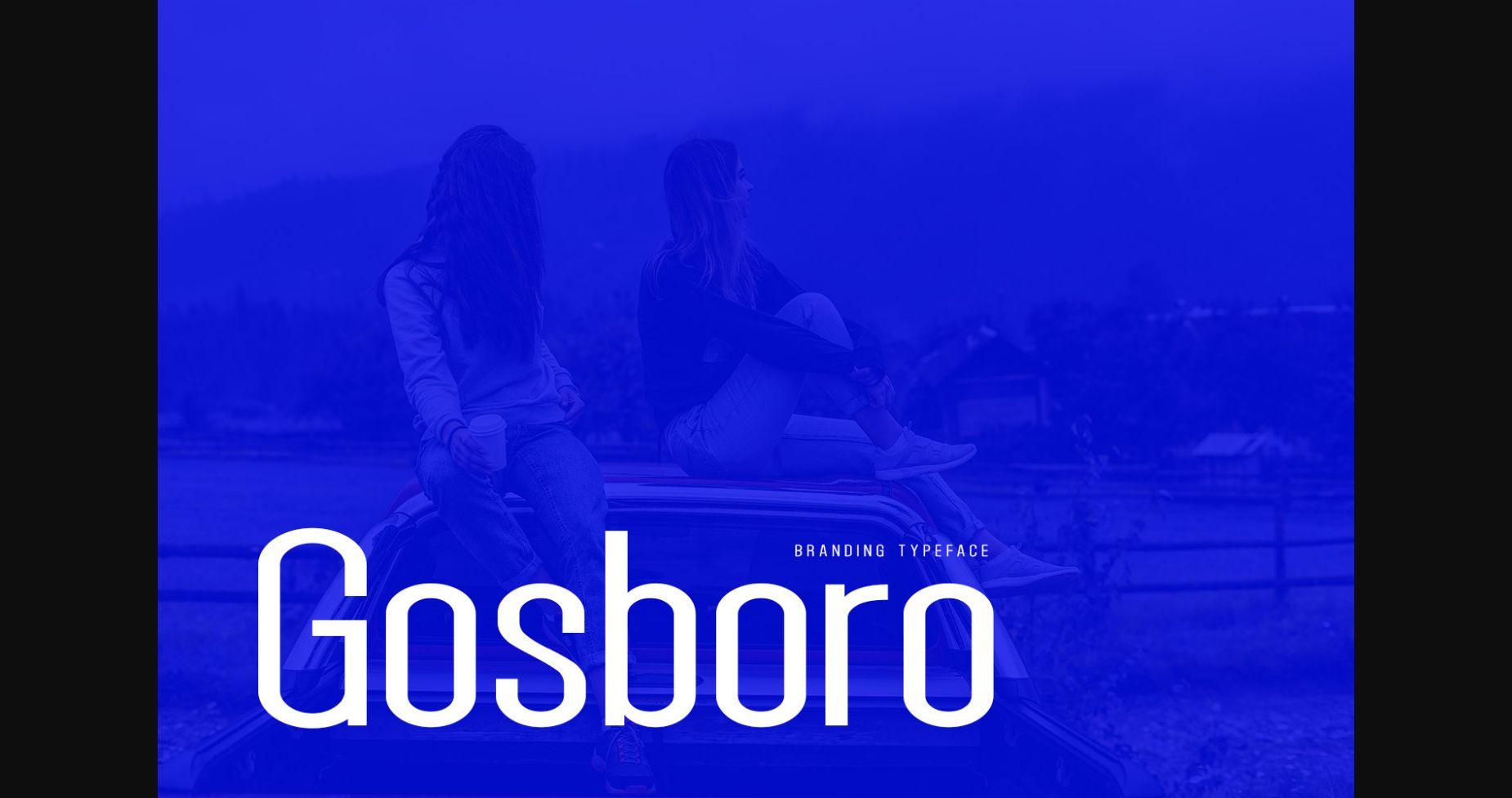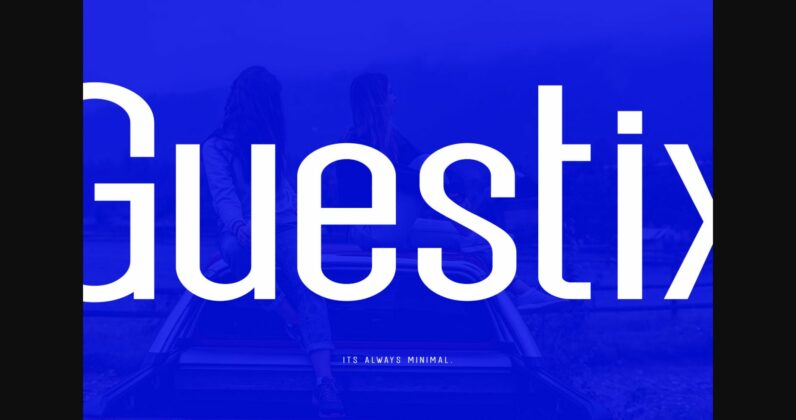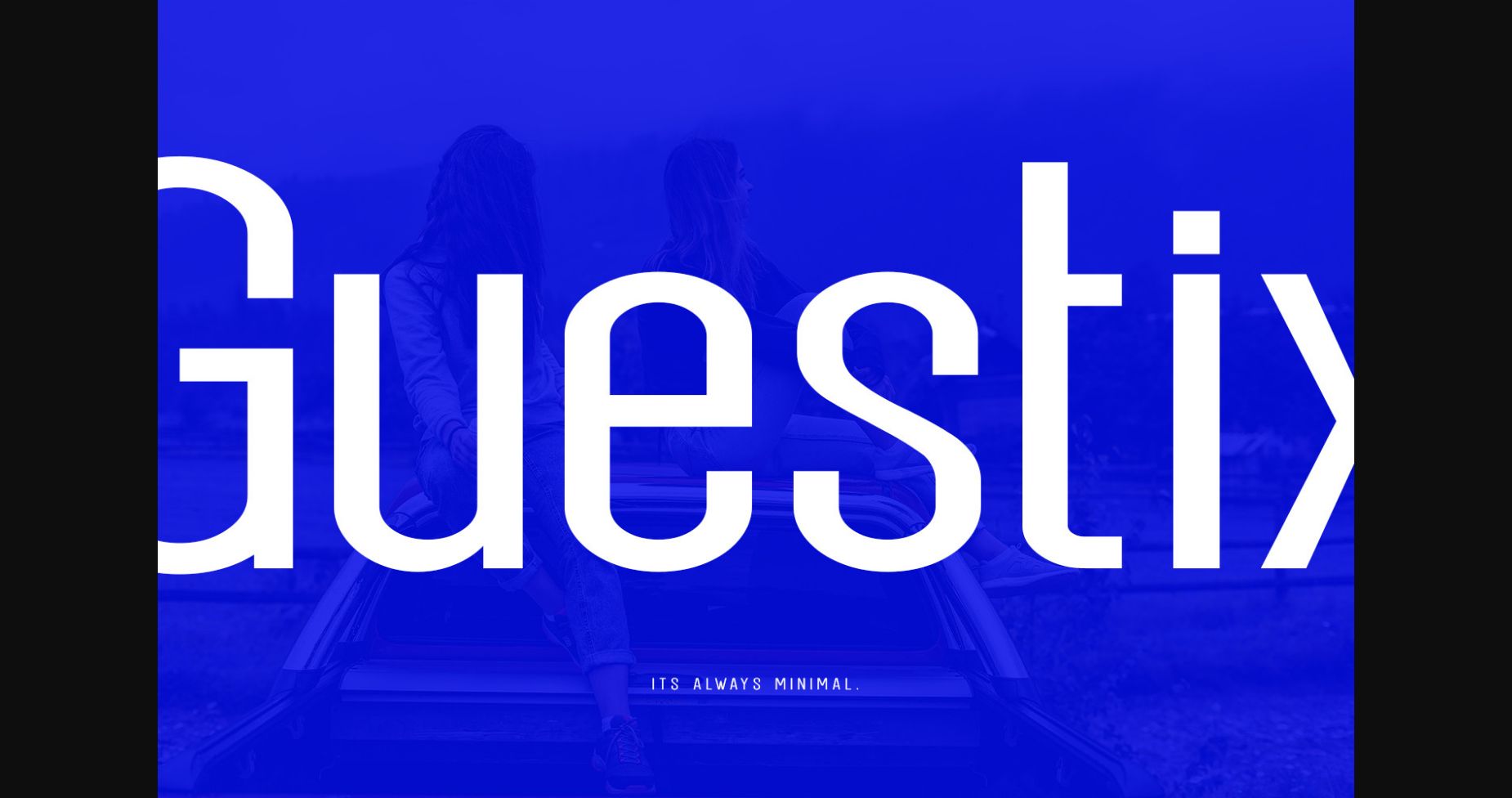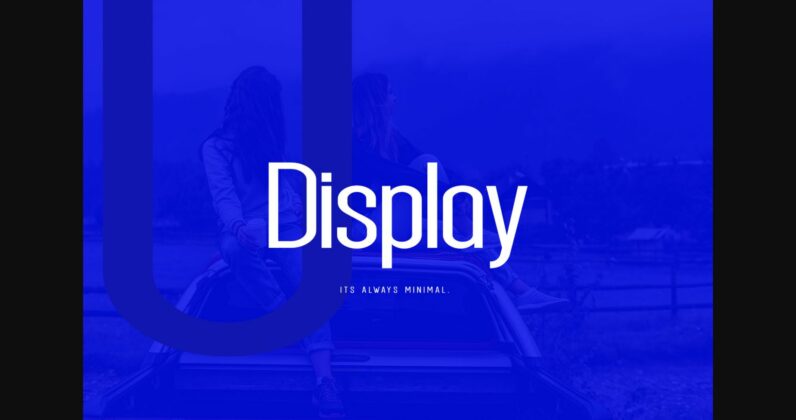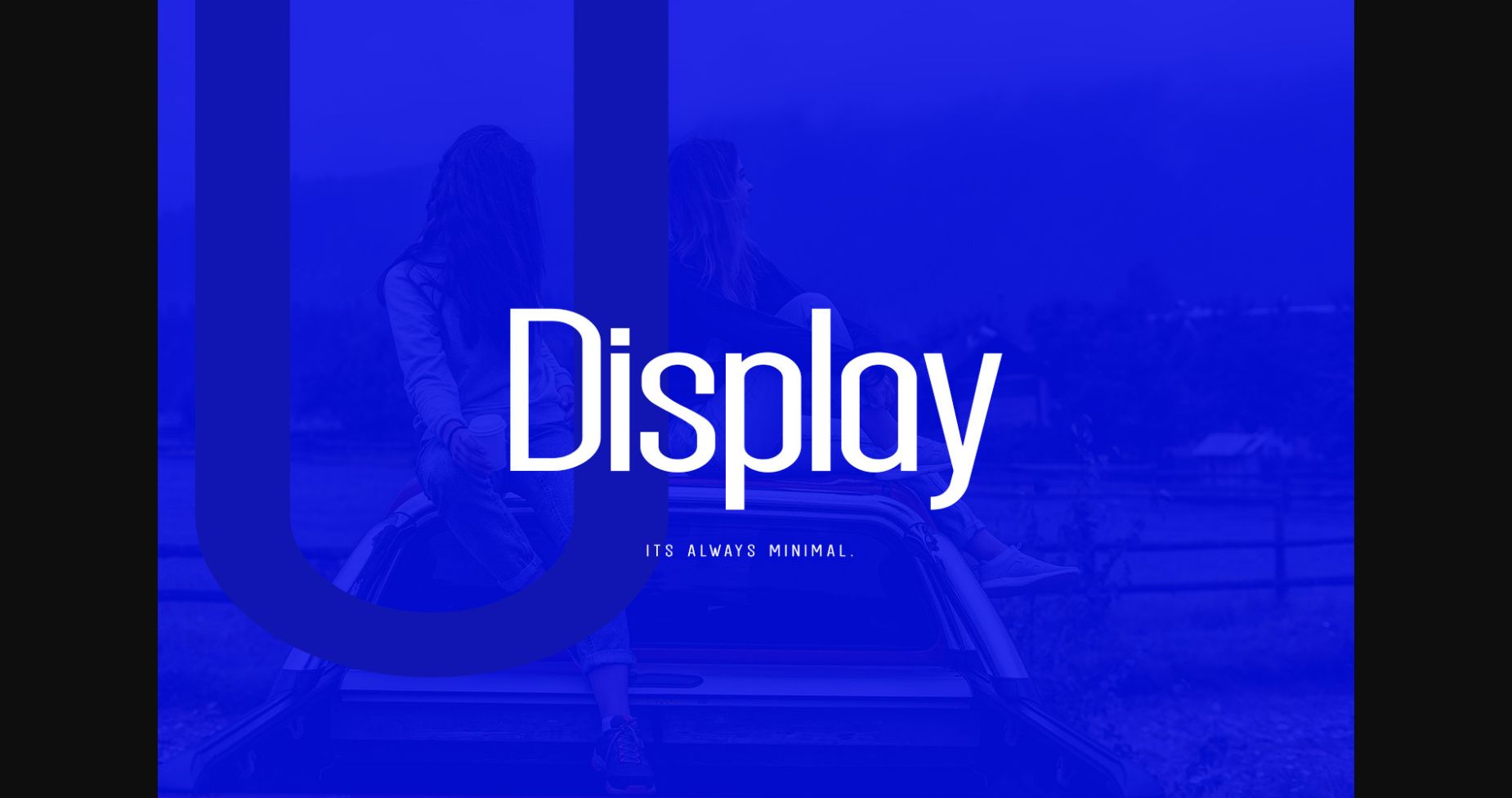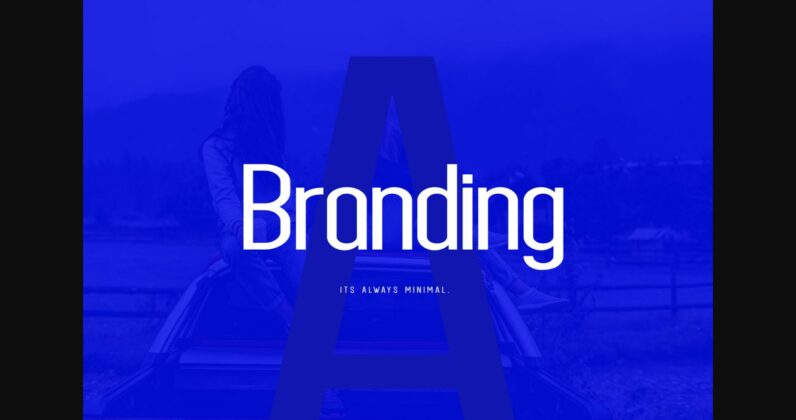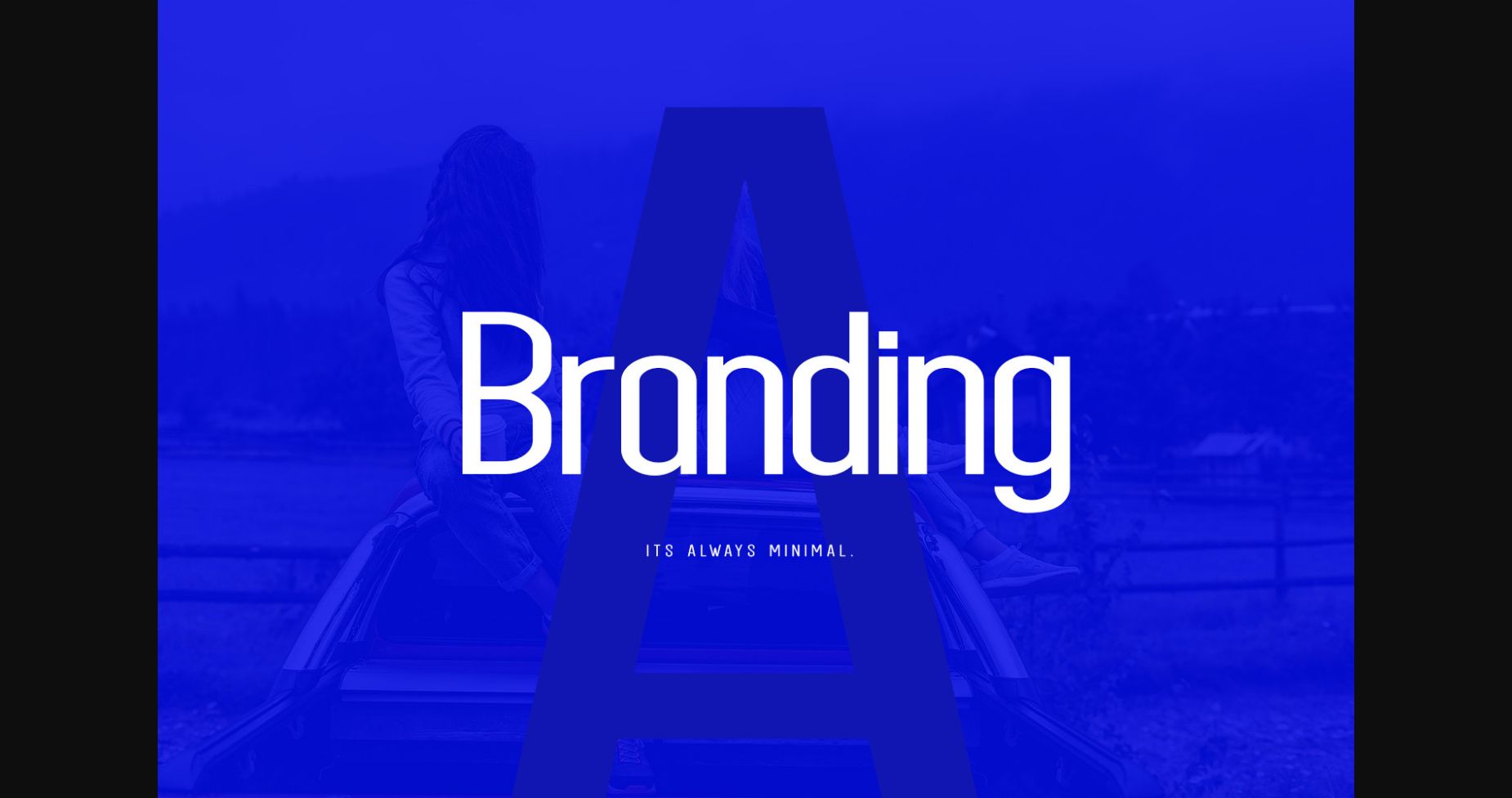
Gosboro is a minimal and neat sans serif font. It can easily be matched to an incredibly large set of projects, so add it to your creative ideas and notice how it makes them stand out!